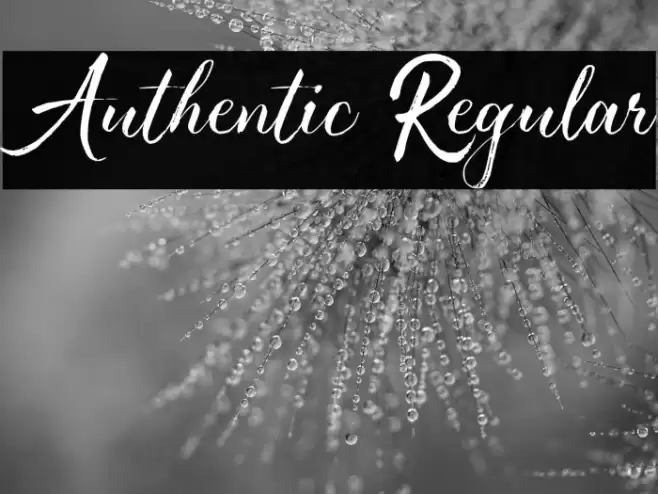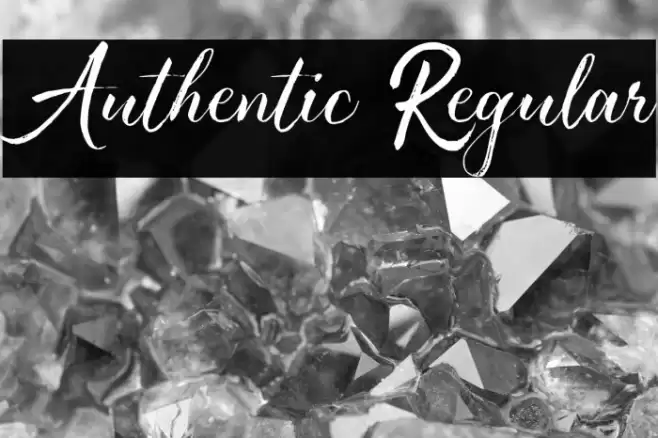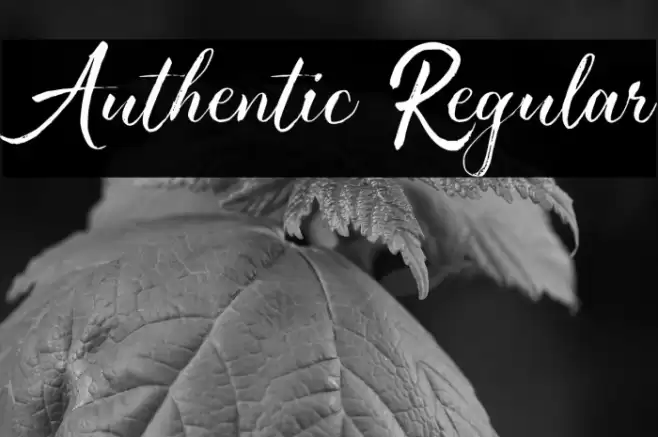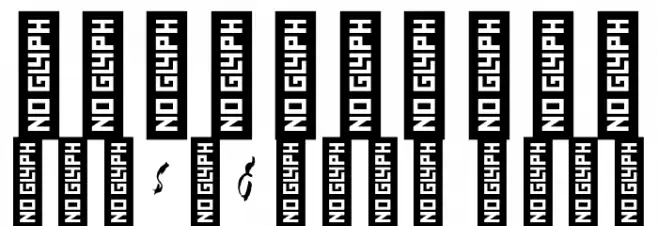
Authentic Regular Font
Authentic Regular Description
This font features an elegant and flowing script style, characterized by its smooth, cursive strokes and a natural handwritten appearance. The uppercase letters are slightly more ornate, with flourishes that add a touch of sophistication. The lowercase letters maintain a consistent flow, enhancing readability while retaining a stylish flair. The font exhibits a medium contrast in stroke thickness, providing a balanced visual appeal. Its overall design is reminiscent of classic calligraphy, making it suitable for projects that require a personal and artistic touch.
A flowing script font with elegant, cursive strokes and a classic calligraphic style from Regular fonts.
- Proposed Projects: Ideal for wedding invitations, greeting cards, personal branding, and elegant packaging designs.
- Overall Style: Classic
- Use Case: Logos, Invitations, Decorative text